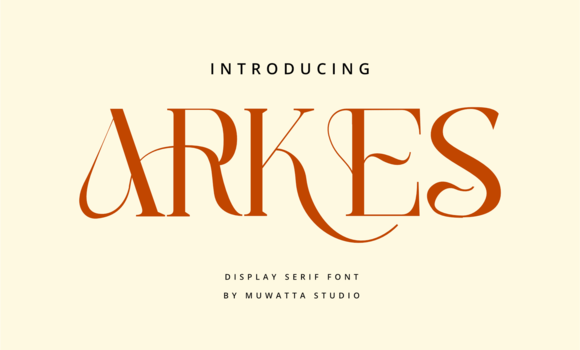
arckes
Arckes Font – Free Download Introduction to Arckes Font Arckes is a serif font that exudes a rich, classic feel with a touch of modern elegance. 📸 Preview Gallery 6 images 📌 Product Name Arckes Font 👤 Author Muwatta Studio